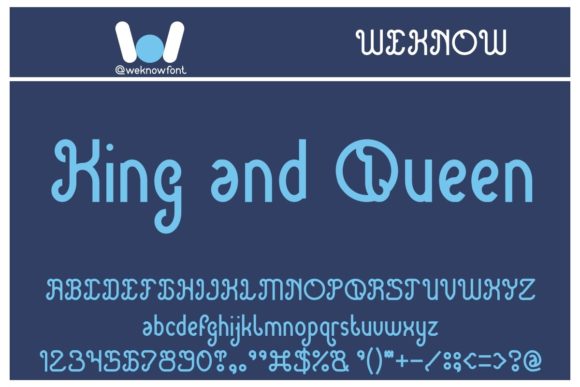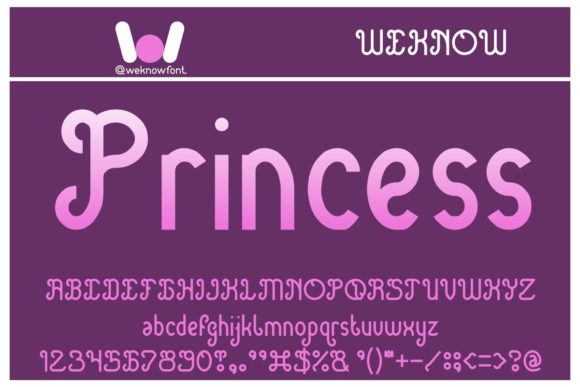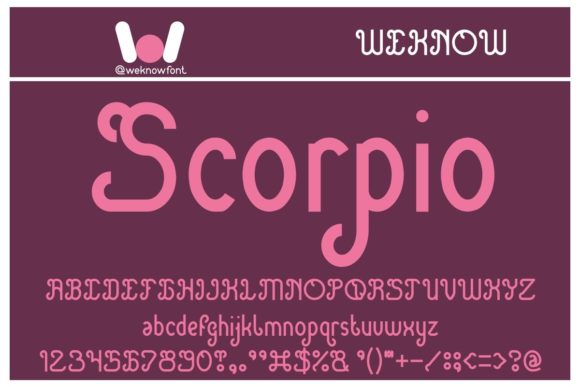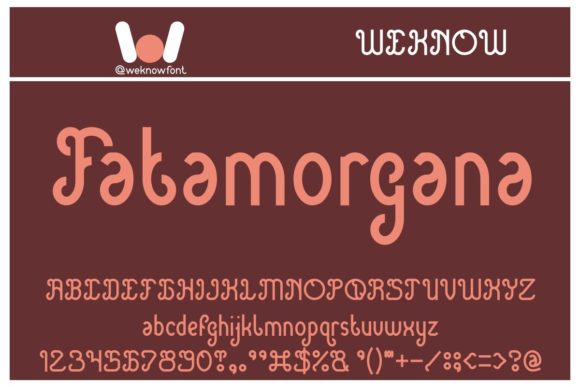
The Ultimate Guide to Green Avocado Font: A Designer’s New Best Friend
I’ll never forget the time I was working on a project for a client who wanted a modern, edgy look. I had spent hours browsing through font libraries, but nothing seemed quite right. That was until I stumbled upon the Green Avocado font. Its unique blend of techno and cool vibes instantly caught my attention, and I knew I had found the perfect fit. In this article, I’ll share my experience with Green Avocado, its features, and how to make the most of it in your designs.
An Honest Review of Green Avocado Font
So, what makes Green Avocado font so special? Let’s dive into the good stuff and a few quirks I’ve discovered.
What I Love About Green Avocado Font
- ✨ Unique and modern design: Green Avocado has a distinct techno look that sets it apart from more traditional fonts.
- ✅ Versatility: Whether you’re working on crafts, digital design, presentations, or greeting cards, this font adapts seamlessly.
- 💡 Instant recognition: The bold, curvy lines of Green Avocado make it perfect for headlines and titles that demand attention.
While Green Avocado is an excellent font, there are a few things to keep in mind:
- 🤔 Legibility at small sizes: Like many display fonts, Green Avocado can become a bit tricky to read when scaled down. It’s best used at larger sizes for maximum impact.
- ⚠️ Limited use in body text: Due to its bold and stylized nature, Green Avocado isn’t ideal for long blocks of text. Stick to headings and titles for the best results.
The Backstory of Green Avocado Font
While the origins of Green Avocado might be shrouded in mystery, it’s easy to imagine a designer inspired by the vibrant colors and shapes of nature. Perhaps a late-night brainstorming session led to the creation of this unique font, with the goal of bringing a fresh, modern look to the world of typography.
Q: Is Green Avocado suitable for body text?
A: While Green Avocado is stunning for headings and titles, it’s not the best choice for long body text due to its stylized nature and potential legibility issues at smaller sizes.
Q: Does Green Avocado support OpenType features?
A: Yes, Green Avocado supports OpenType features, including glyphs and stylistic alternates, allowing for a high degree of customization in compatible applications.
Q: Can I use Green Avocado on mobile apps?
A: Absolutely! Green Avocado can be used in mobile app design, especially for UI elements and headings, to add a modern and distinctive touch.